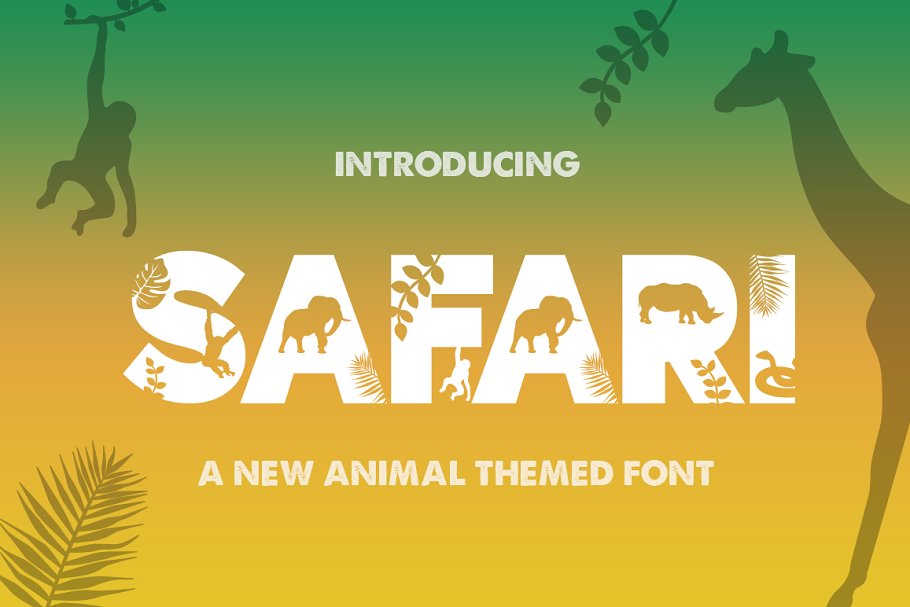
Introducing Safari Silhouette Font, the perfect font for creating captivating children's books. Created by Salt & Pepper Designs, this font boasts of its unique style that combines elegance and playfulness. Its smooth curves and intricate details add a touch of fun and excitement to any text.
With Safari Silhouette Font, your texts will be more than just words on paper, they will be a visual masterpiece that ignites the imagination of your young readers. Its eye-catching design is sure to capture the attention of anyone who lays their eyes on it. Let your creativity run wild and watch as Safari Silhouette Font brings your ideas to life.